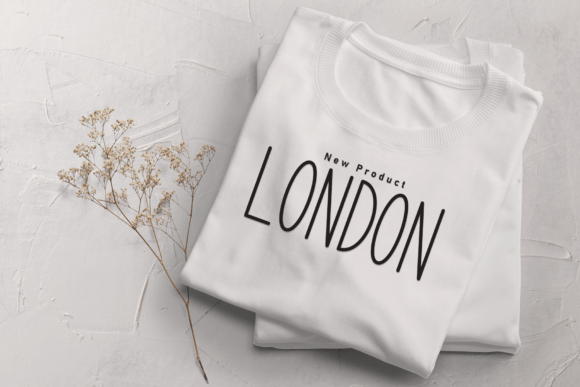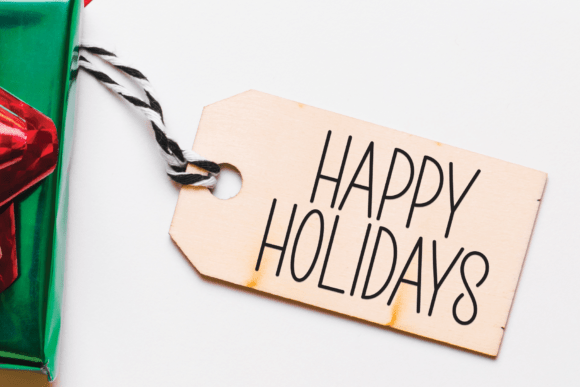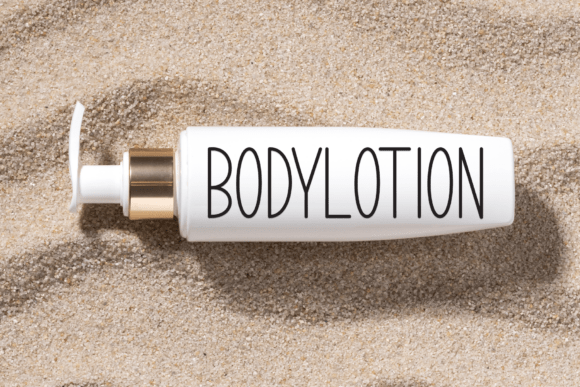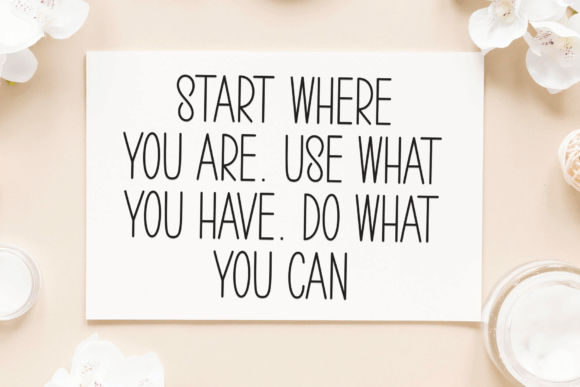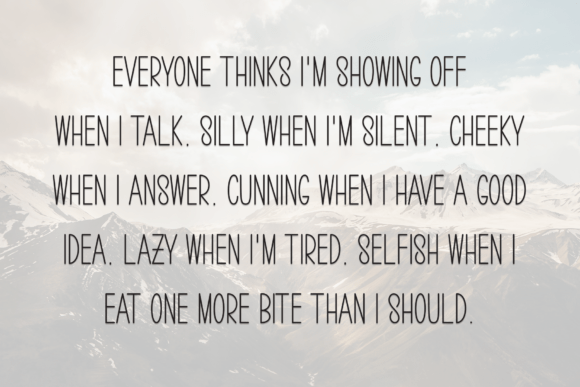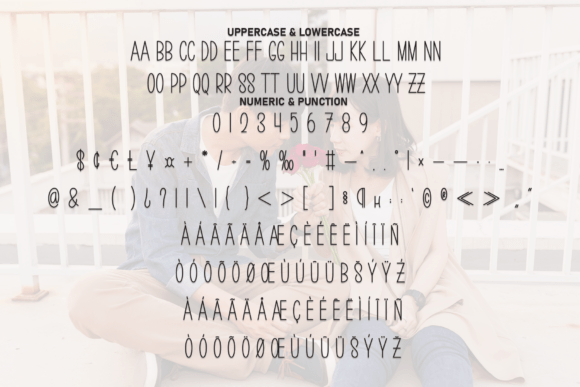
Darling Romance Font: Adding a Touch of Whimsy to Your Designs
Are you looking for a font that exudes warmth, friendliness, and playfulness? Look no further than the Darling Romance Font, a charming handwritten display font that’s perfect for adding a touch of sweetness to your designs. In this article, we’ll dive into the features and benefits of this delightful typeface, and explore how it can elevate your wedding invitations, cards, and other design projects.
A Warm and Welcoming Font
The Darling Romance Font is designed to radiate a warm, friendly vibe that’s sure to capture the hearts of your audience. Its handwritten style is reminiscent of a bygone era, evoking feelings of nostalgia and romance. This font is perfect for designers and crafters who want to add a personal touch to their work, making it ideal for projects that require a human and approachable feel.
Wedding invitations, cards, and other stationery designs are a perfect match for the Darling Romance Font. The font’s playful and whimsical nature makes it an excellent choice for couples who want to add a touch of romance and personality to their wedding stationery. Whether you’re designing a formal or informal wedding invitation, this font is sure to make it stand out.
Effortlessly Infusing Sweetness and Fun
The Darling Romance Font has a unique ability to effortlessly infuse sweetness and fun into your designs. Its charming and welcoming style makes it perfect for projects that require a playful touch, such as children’s party invitations, birthday cards, and other celebratory designs. With this font, you can add a dash of whimsy and personality to your work, making it more engaging and memorable.
Key Features of Darling Romance Font
- Handwritten display font: The Darling Romance Font is a handwritten display font that’s designed to add a personal touch to your designs.
- Warm and friendly vibe: This font radiates a warm, friendly vibe that’s perfect for projects that require a human and approachable feel.
- Playful and whimsical: The Darling Romance Font has a playful and whimsical nature that makes it perfect for projects that require a touch of romance and personality.
- Perfect for wedding invitations and cards: This font is ideal for wedding invitations, cards, and other stationery designs that require a touch of romance and elegance.
Tips for Using Darling Romance Font
Here are some tips for using the Darling Romance Font in your designs:
- Pair with complementary fonts: Pair the Darling Romance Font with complementary fonts to create a unique and visually appealing design.
- Use for headings and titles: Use the Darling Romance Font for headings and titles to add a touch of personality and whimsy to your designs.
- Experiment with colors and textures: Experiment with different colors and textures to add depth and interest to your designs.
In conclusion, the Darling Romance Font is a charming and welcoming handwritten display font that’s perfect for adding a touch of whimsy and romance to your designs. Its warm and friendly vibe makes it ideal for wedding invitations, cards, and other stationery designs that require a personal touch. With its playful and whimsical nature, this font is sure to elevate your designs and make them more engaging and memorable.